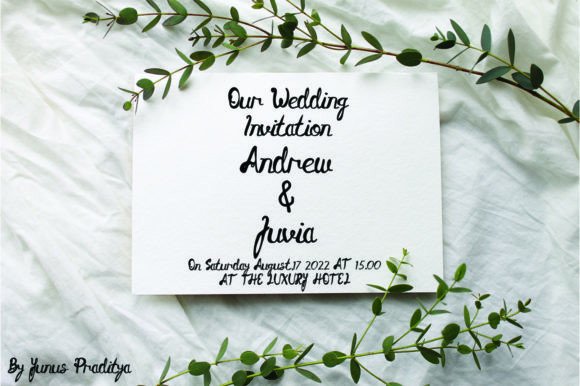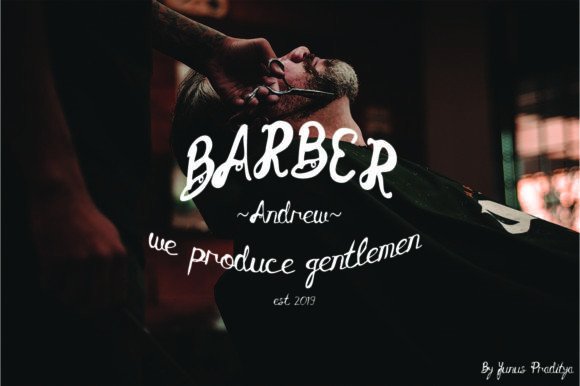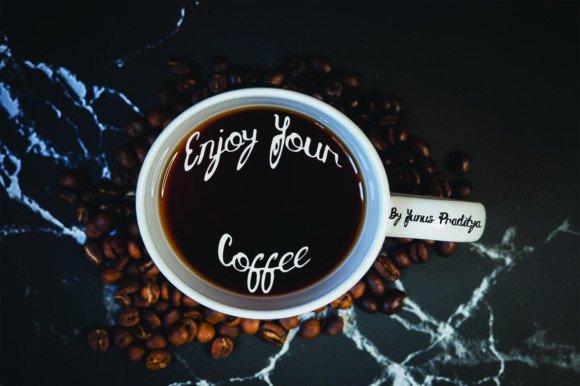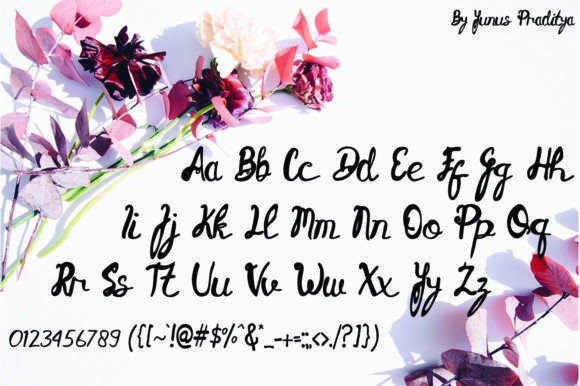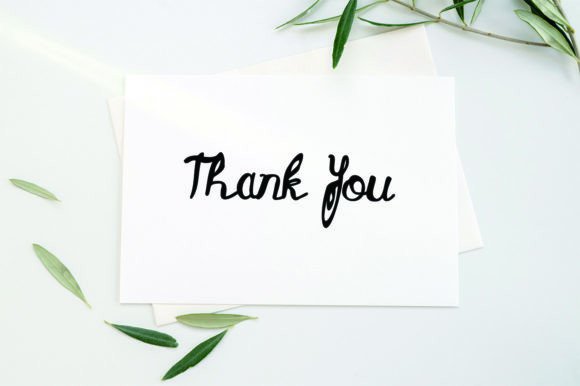
Candu Font
About Candu Font
“Candu” is a natural and authentic-looking handwritten font that adds a personal and genuine touch to your designs. This font is ideal for creating a warm and approachable atmosphere in various design contexts. Whether you’re working on business cards, branding materials, notebooks, stationery, or back-to-school projects, “Candu” is a font that infuses authenticity into your designs.
The charm of “Candu” lies in its ability to convey a sense of naturalness and genuineness through its handwritten characters. The font’s letters possess an organic and unpretentious quality that adds character and authenticity to your designs. “Candu” is a font that effortlessly creates a personal connection with your audience, making your designs feel relatable and heartfelt.
One of the notable strengths of “Candu” is its versatility, making it suitable for a wide range of applications. Whether you’re using it to add a personal touch to your business cards, create a friendly and approachable brand identity, design notebooks that resonate with sincerity, craft stationery with a homemade feel, or embark on creative back-to-school projects that capture the essence of authenticity, “Candu” adapts seamlessly to your creative vision.
Incorporating “Candu” into your design projects will likely result in outcomes that are not only natural and authentic but also full of personal charm. Its handwritten style and unassuming form make it an excellent choice for creating designs that connect with your audience on a personal level. Embrace the natural and authentic qualities of “Candu” in your next project, and watch as it enhances the warmth and sincerity of your designs, making them relatable and genuinely engaging.